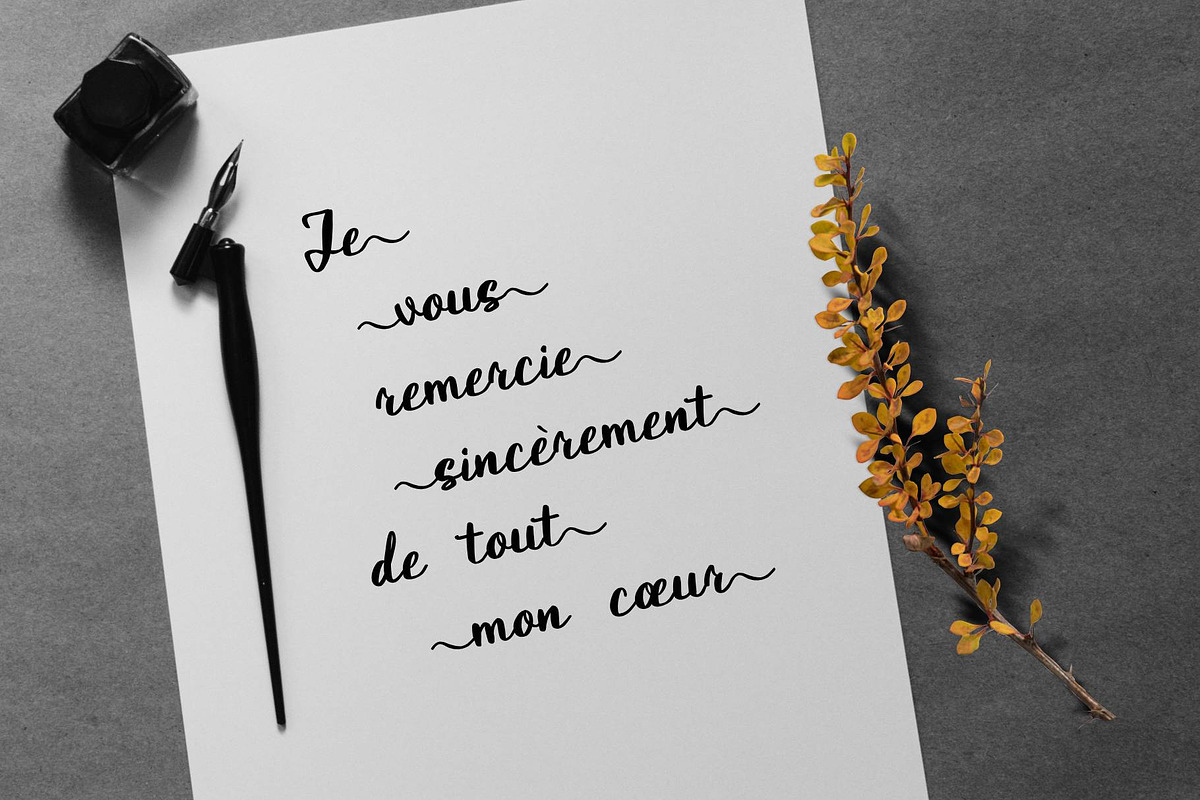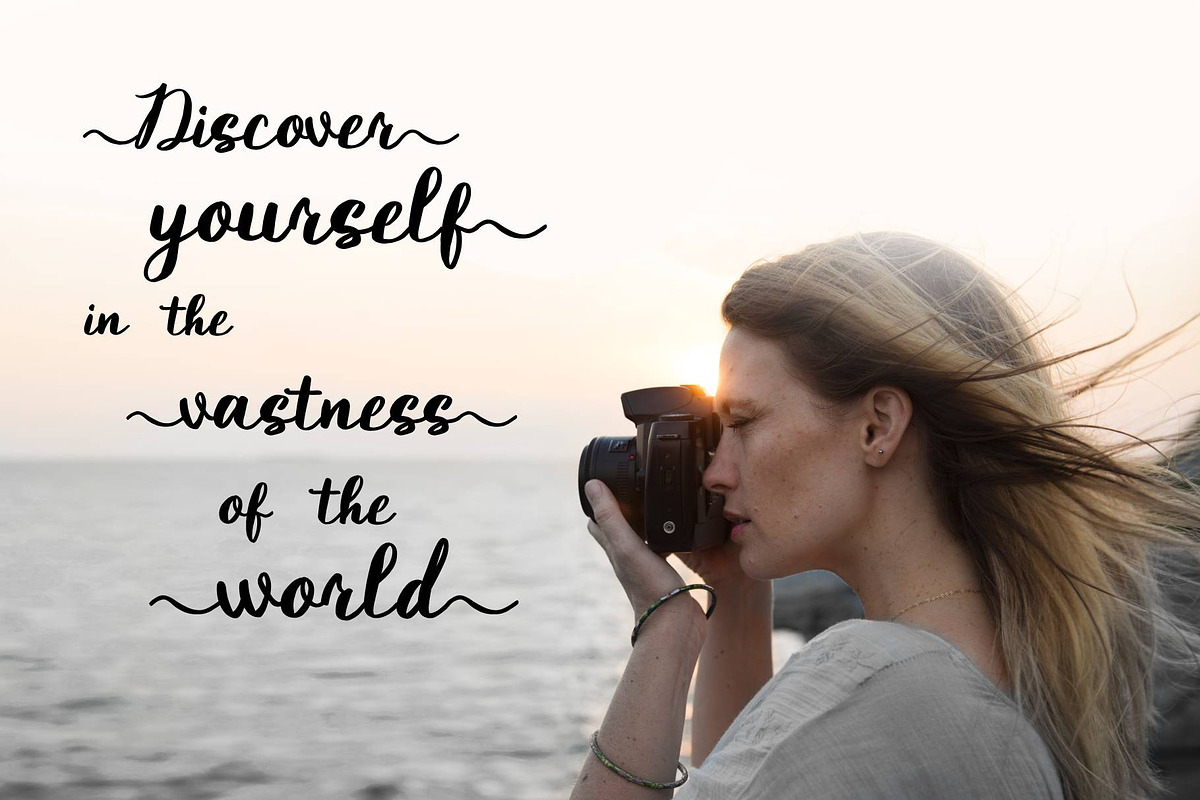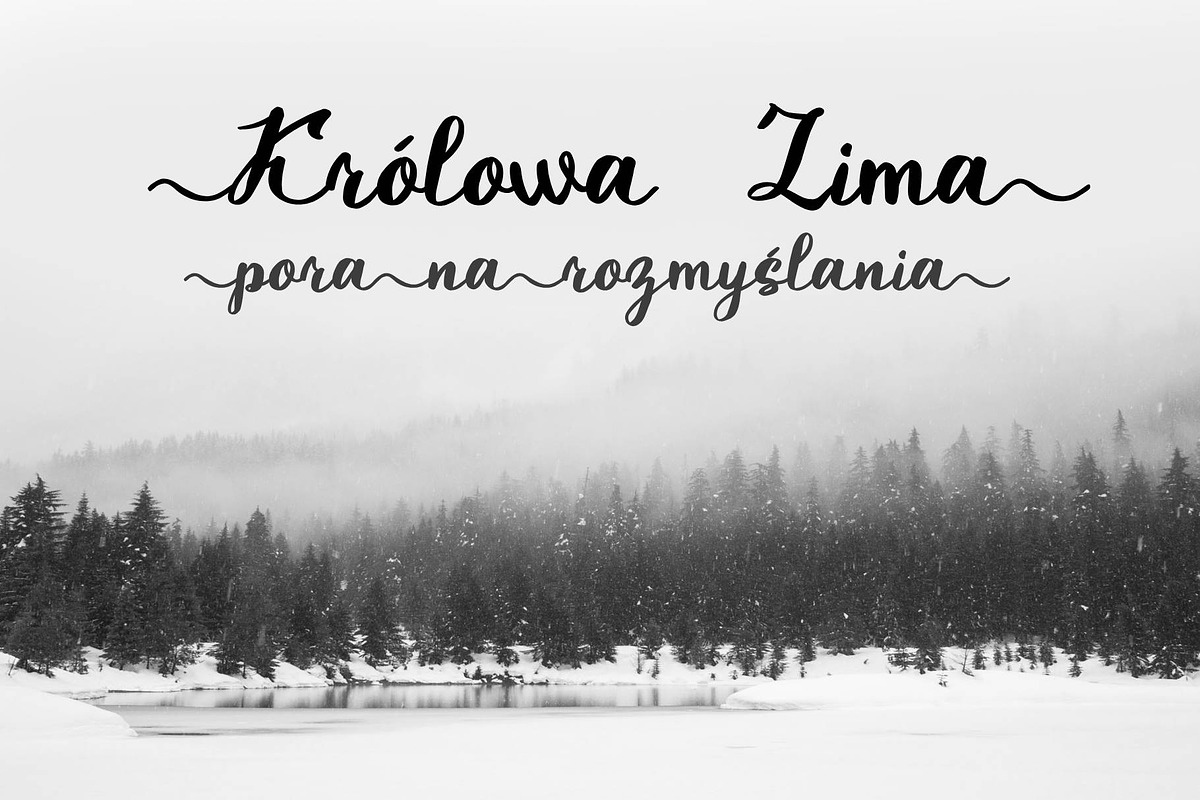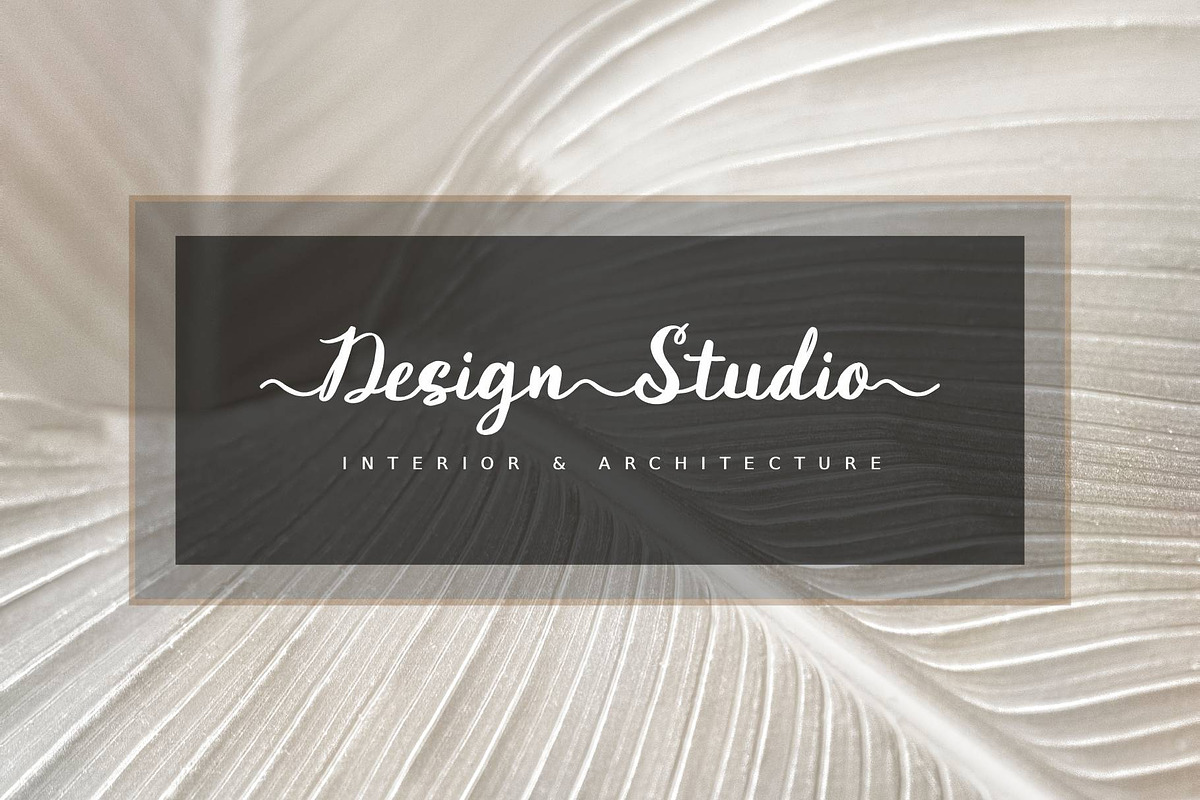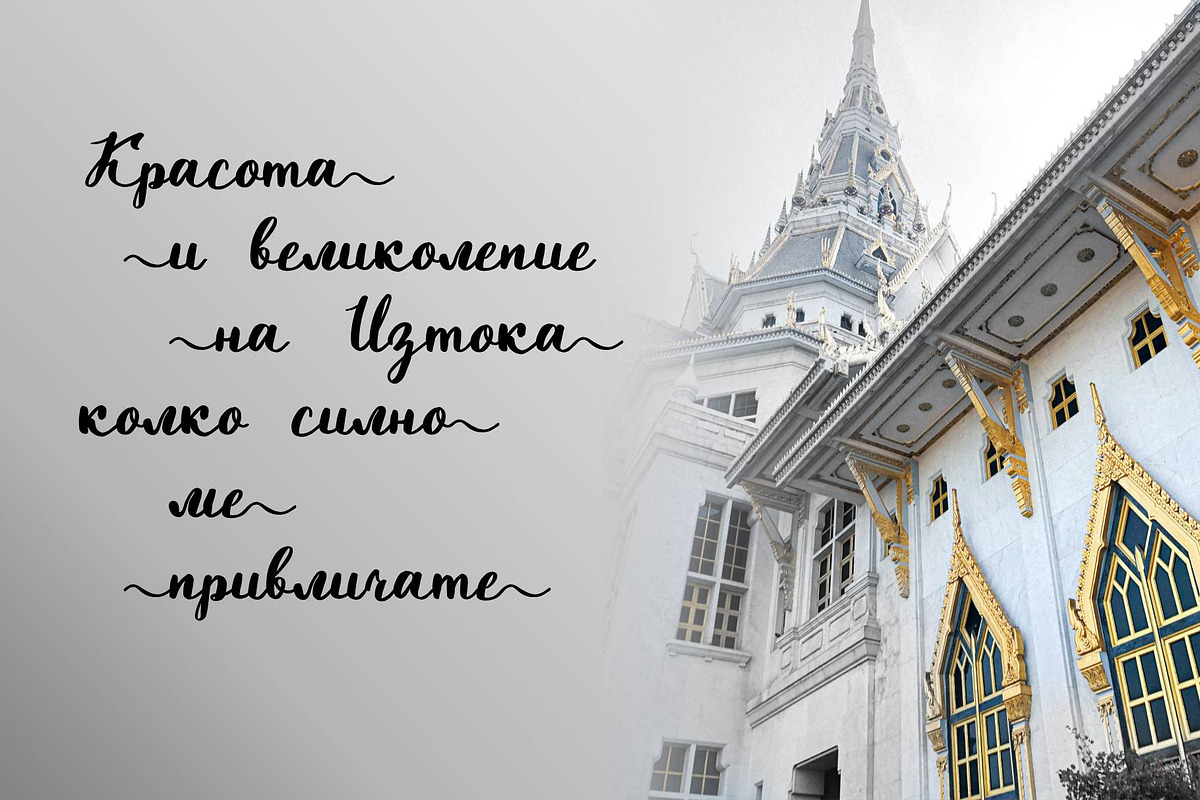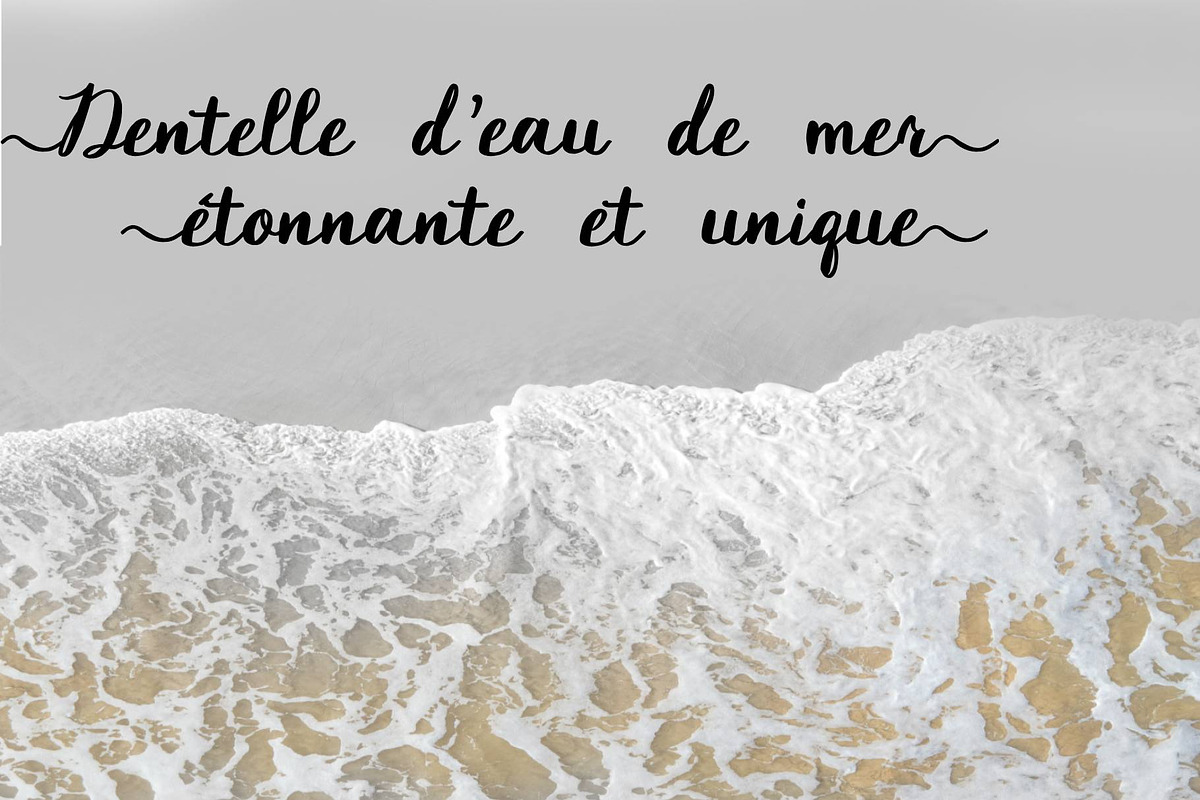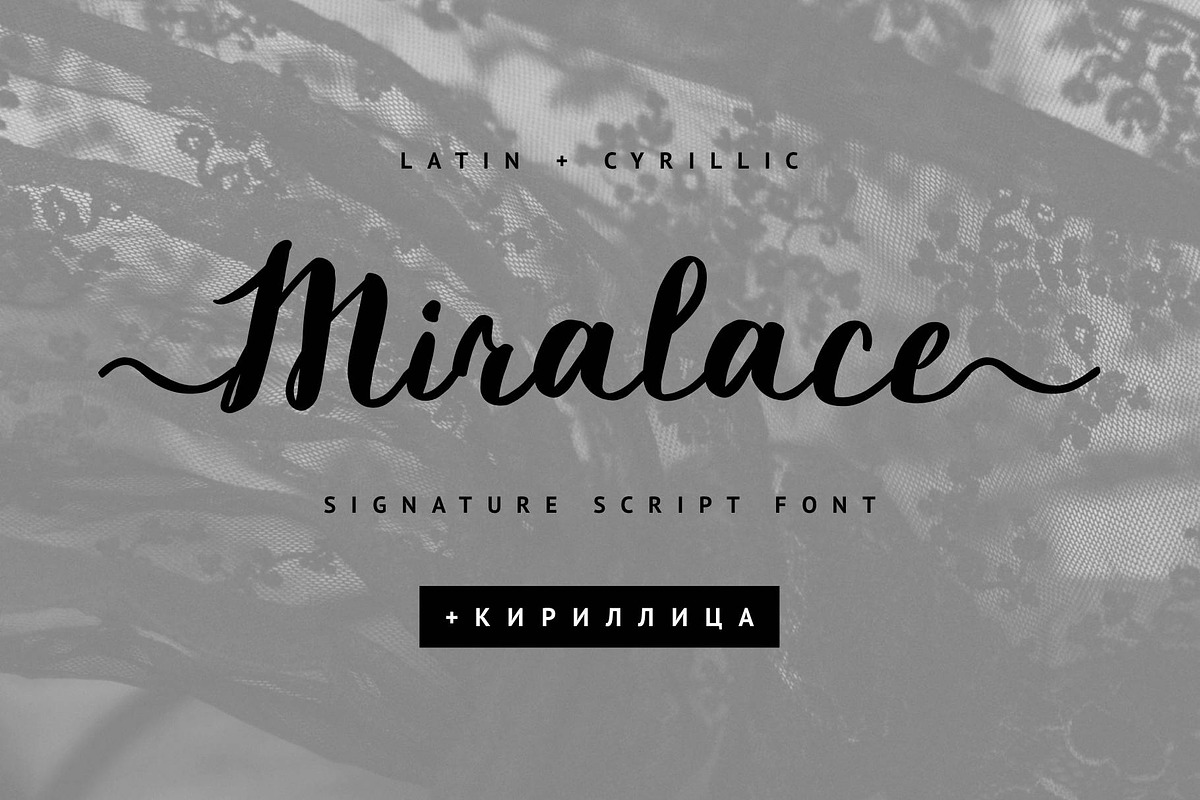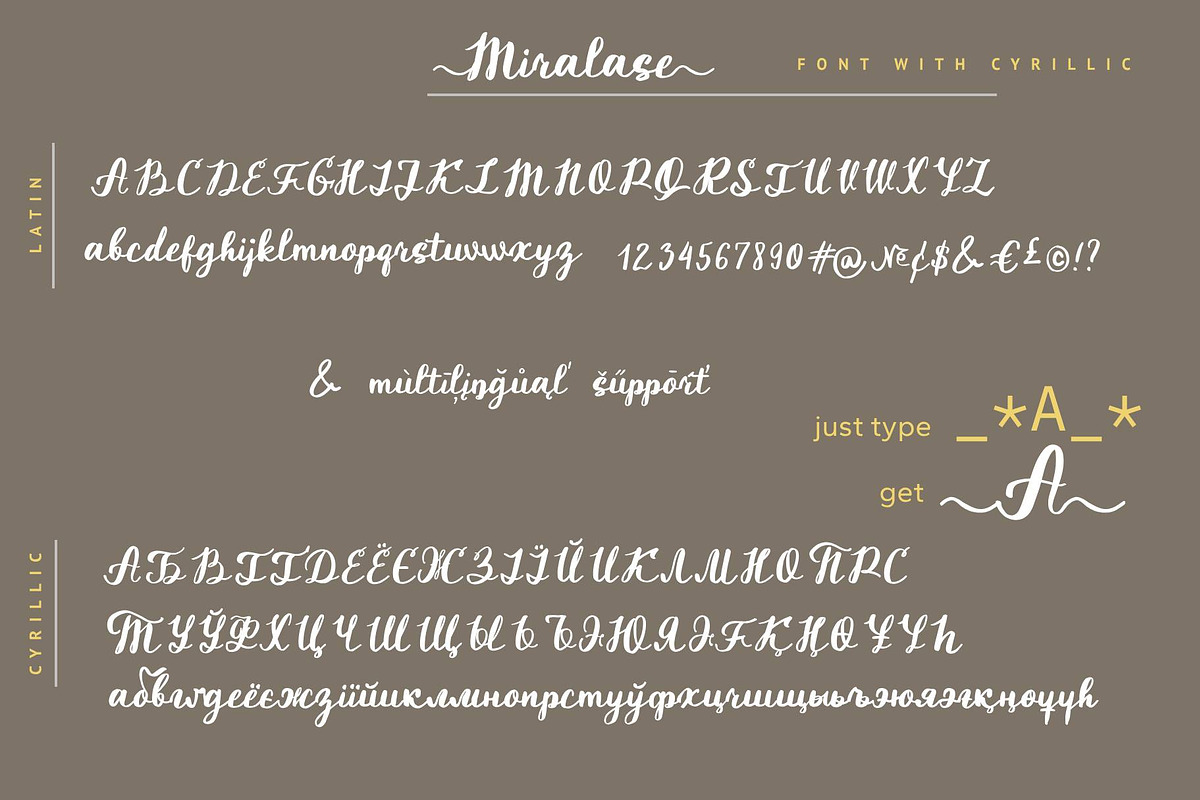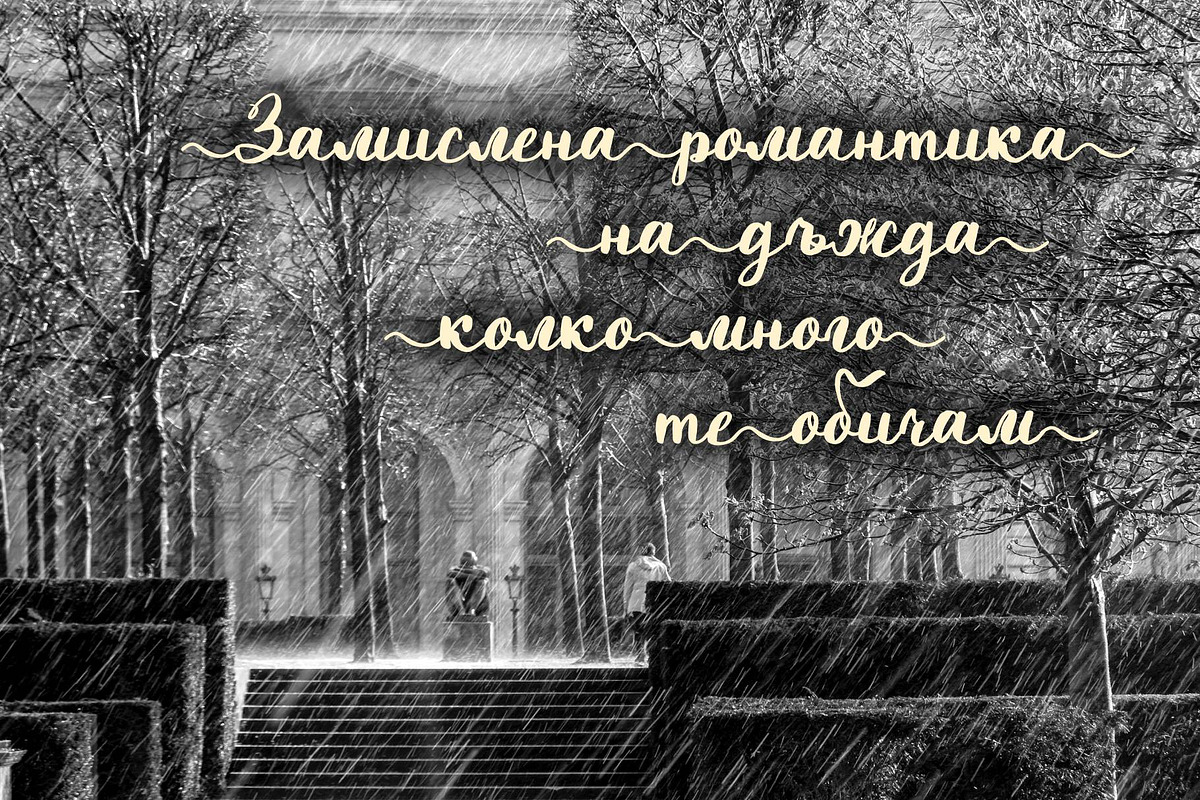
Miralace Cyrillic Script Font
Miralace Cyrillic Font is an expressive handwritten font that will add creativity to your designs
With its natural, flowing lines and decorative flourishes, this font is perfect for projects that require a touch of warmth and authenticity.
Use it for: Quotes and inspirational graphics:
Create visually appealing and shareable content.
Handmade crafts: Add a delicate touch to your handmade products.
Children's books and illustrations: Bring a sense of fun and whimsy to your designs.
Multilingual Support for 82 languages: Abaza, Avar, Adyghe, Afrikaans, Agul, Albanian, Asturian, Basque, Belarusian, Bulgarian, Breton, Buryat, Valencian, English, Estonian, Faroese, Finnish, French, Frisian, Gaelic (Scottish), Galician, German, Hungarian, Icelandic, Indonesian, Ingush, Irish, Italian, Kabardino-Circassian, Karakalpak (Lat.), Karachay-Balkar, Karelian, Kazakh, Komi-Permyak, Komi-Zyryan, Kurdish (Lat.), Kumyk, Lak, Latin, Latvian, Lezgin, Lithuanian, Maori, Mongolian (Kyrgyz.), Mordovian-Erzya, Mordovian-Moksha, Nogai, Norwegian, Occitan, Polish, Portuguese, Rhaetian-Romance, Romanian, Russian, Rutul, Sami Lule, Slovak, Slovenian, Spanish, Swedish, Tabasaran, Tat, Tswan, Tuvinian, Turkmen (Lat.), Ukrainian, Uzbek (Lat.), Valencian, Welsh